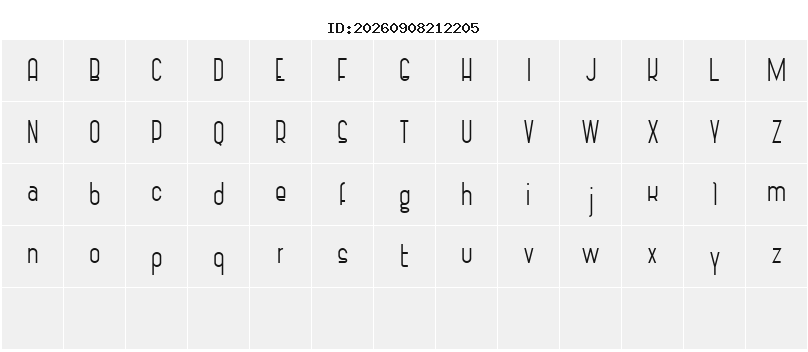
• Font Name: Vintage Straps
• Full Font Name: Vintage Straps Regular
• Designer: Studio Monocromo
• Manufacturer: Studio Monocromo
About Vintage Straps.ttf
Vintage Straps.ttf is a modern, elegant sans-serif font designed for ultimate readability and visual harmony. Perfect for branding, headlines, web design, and print materials.